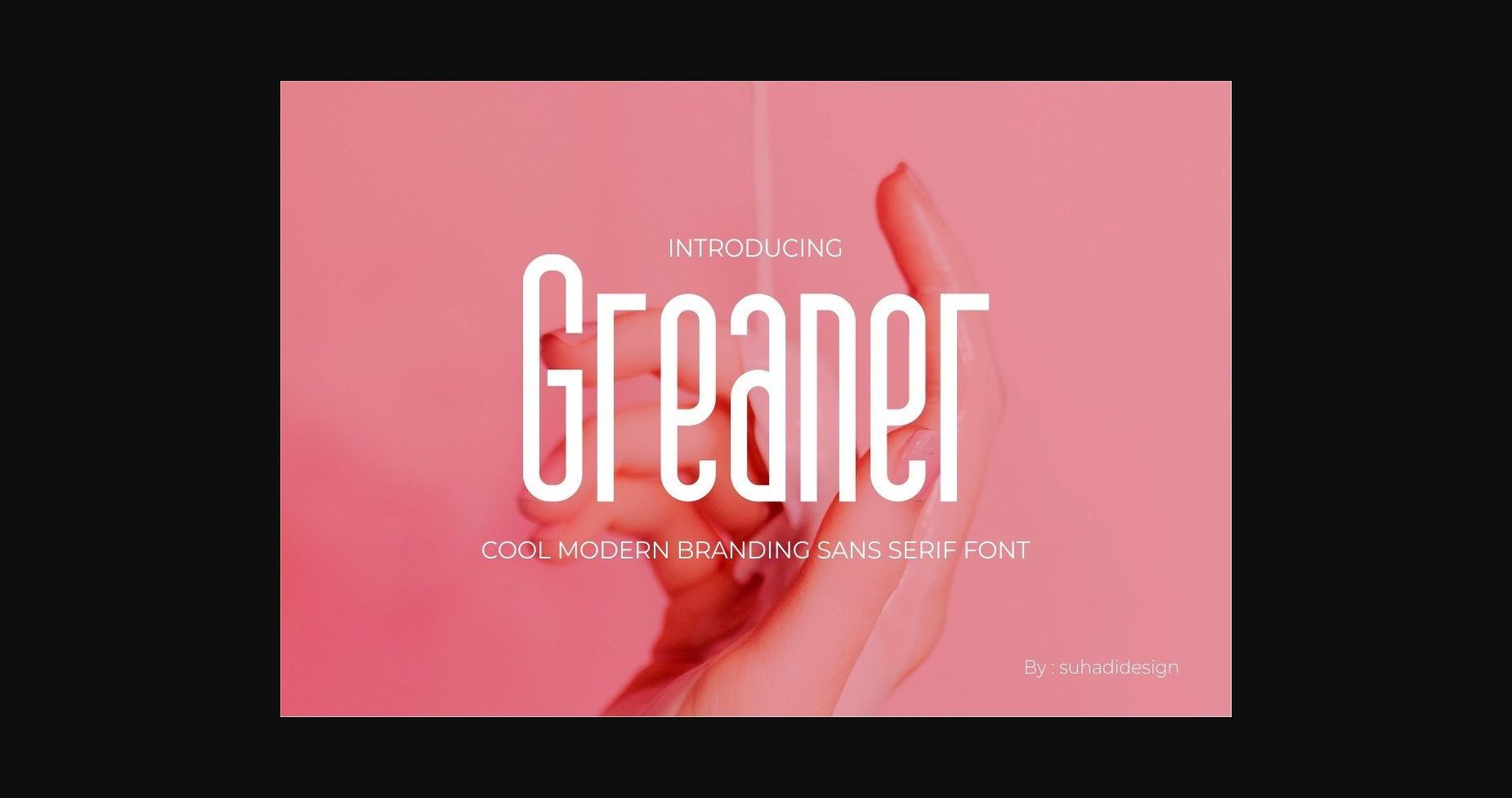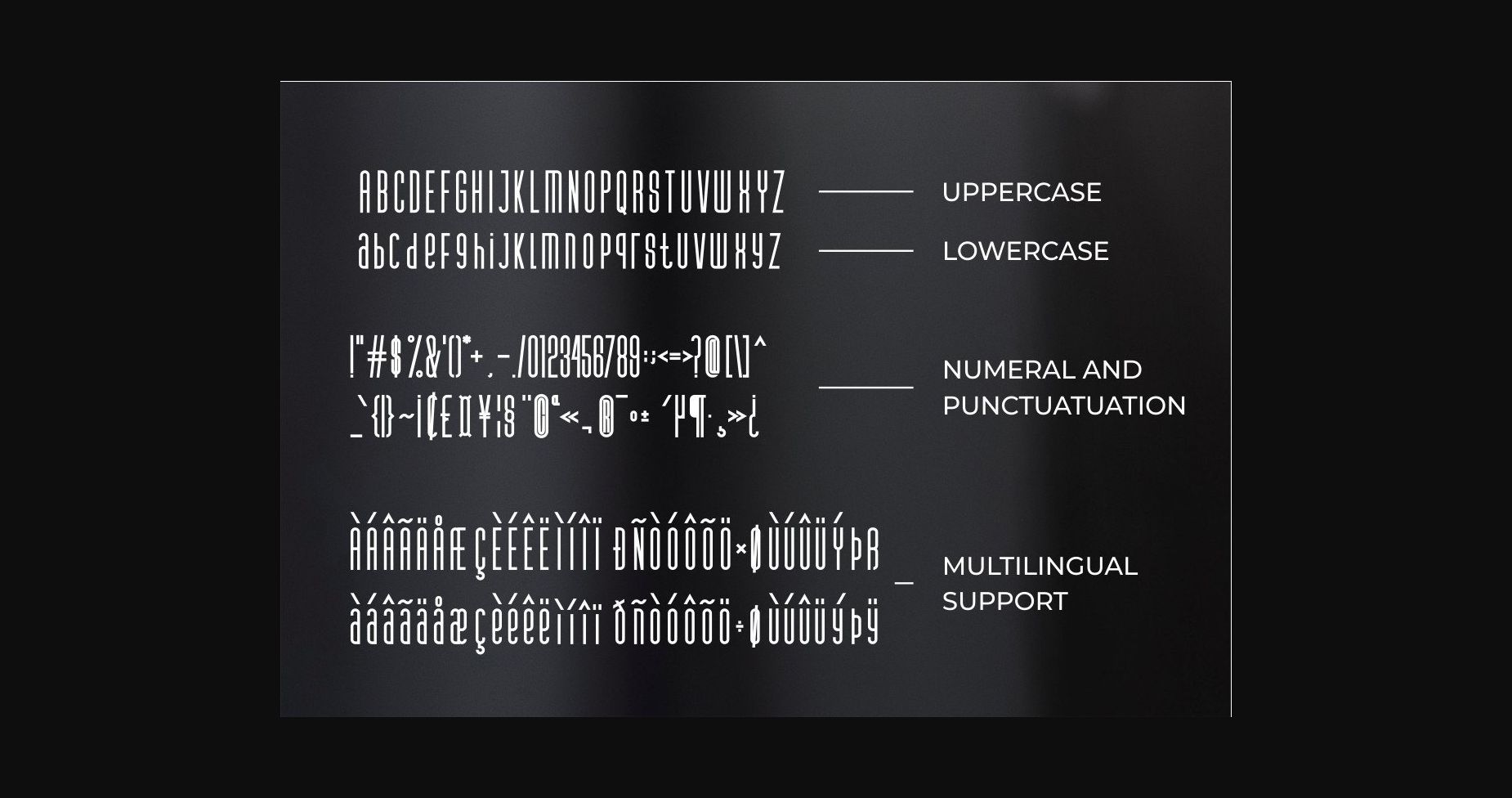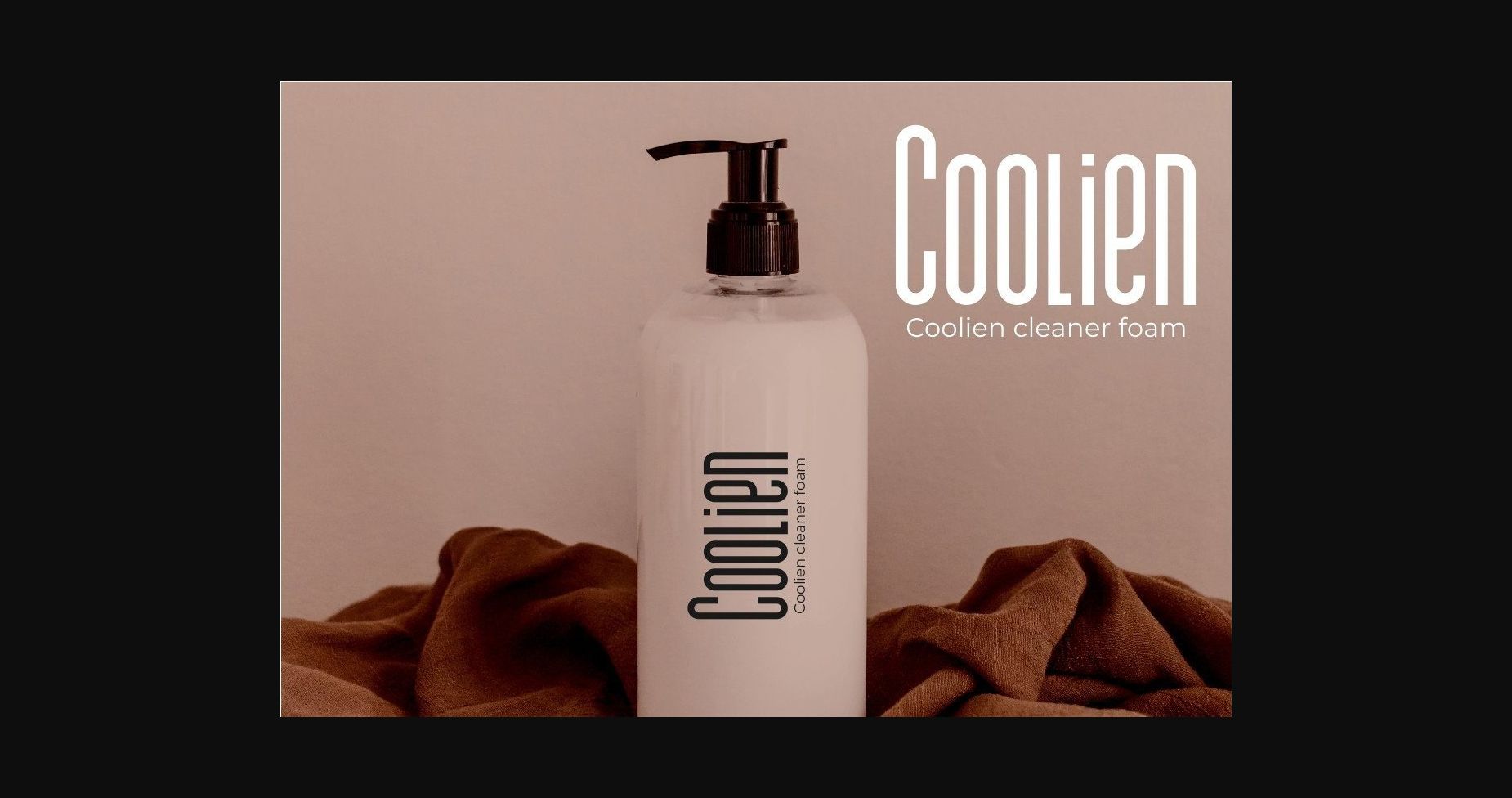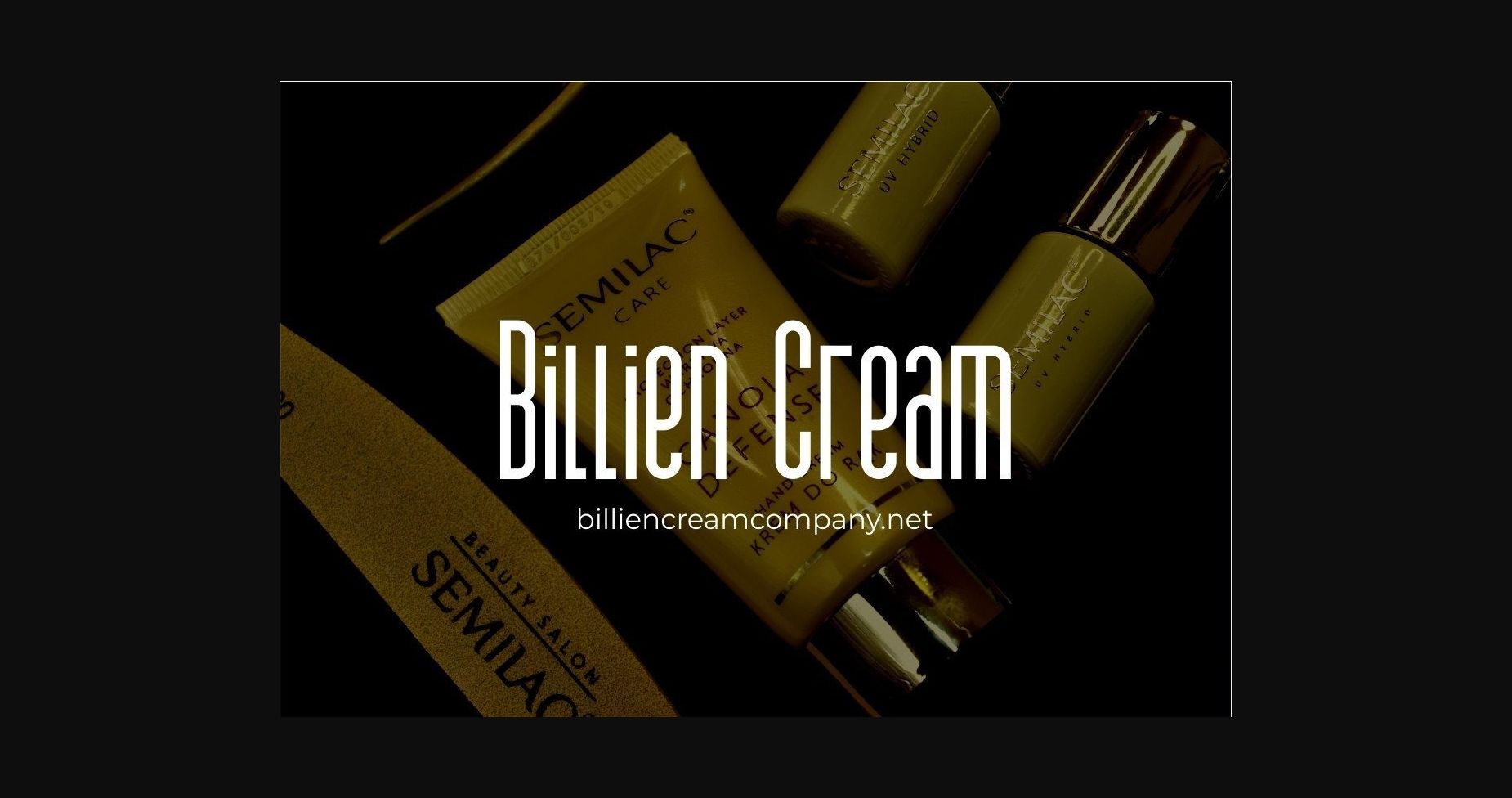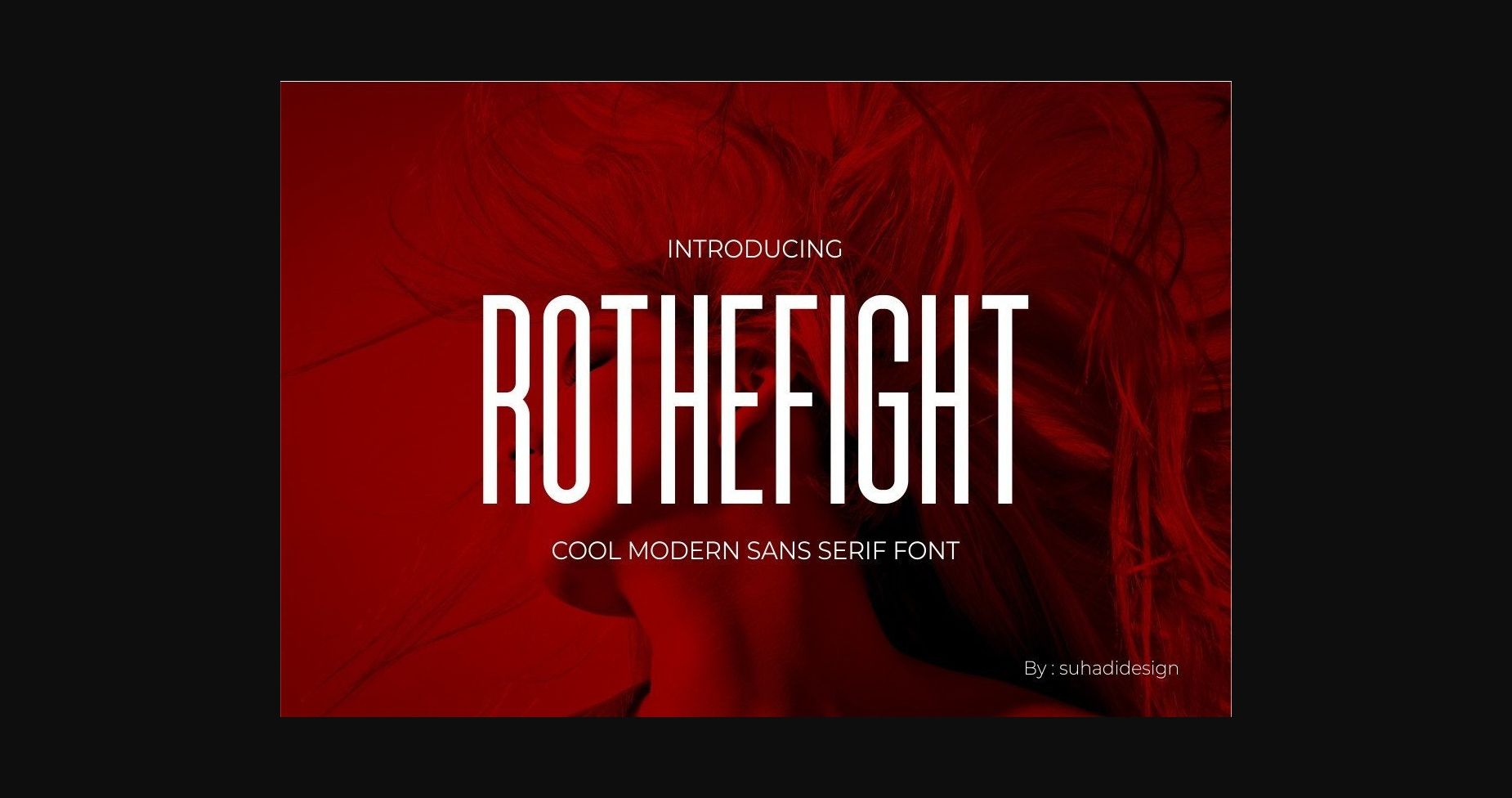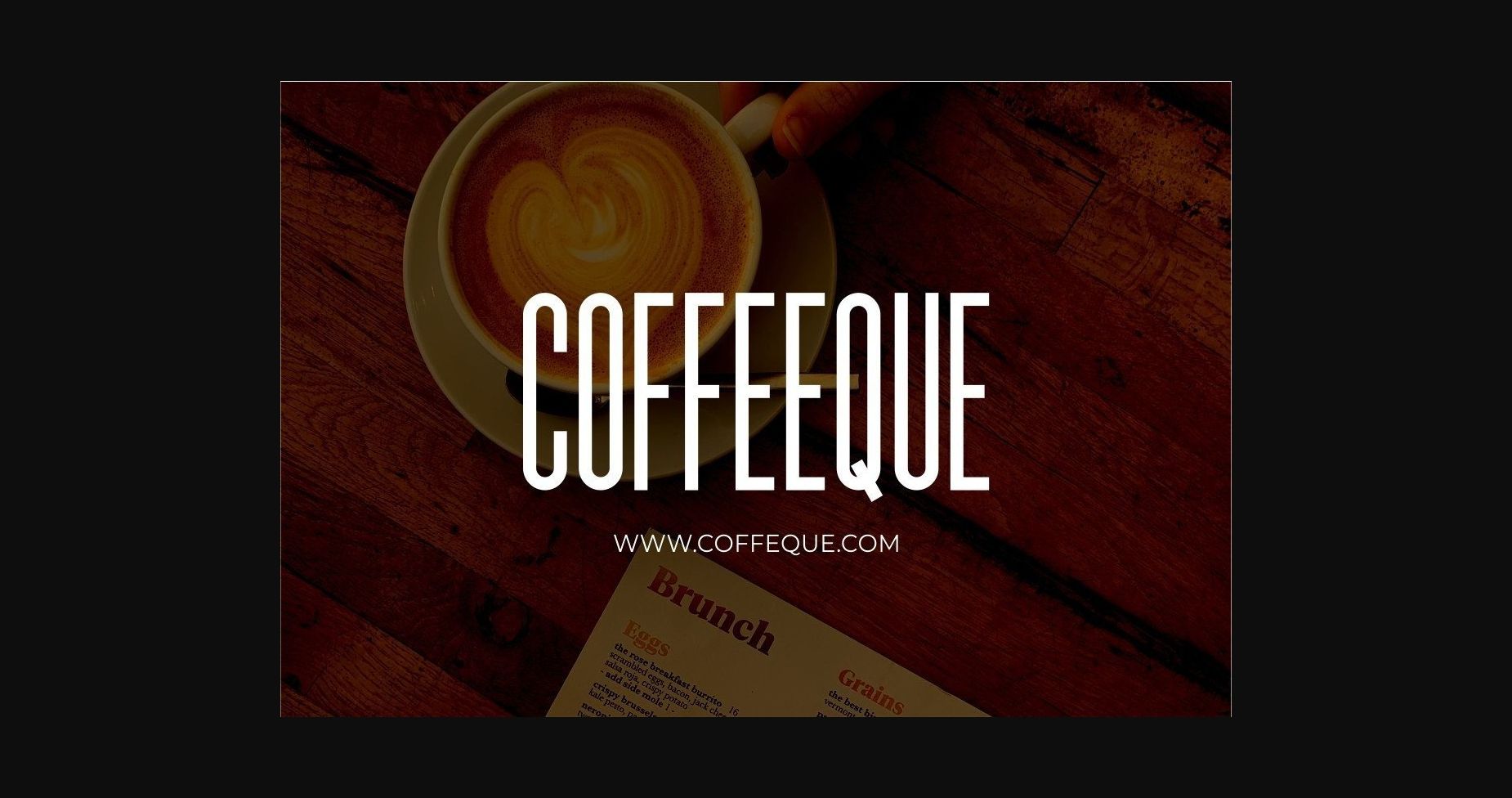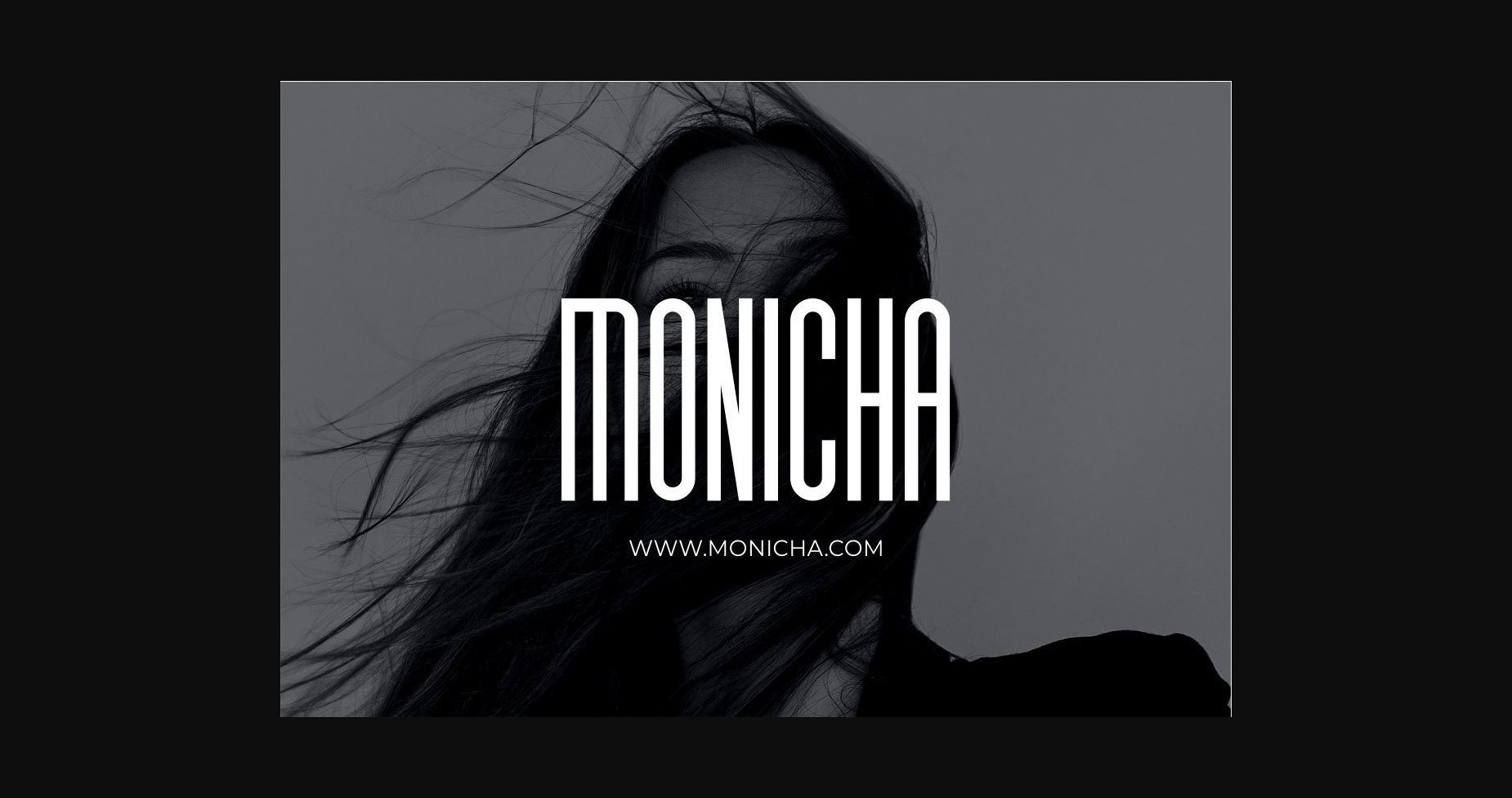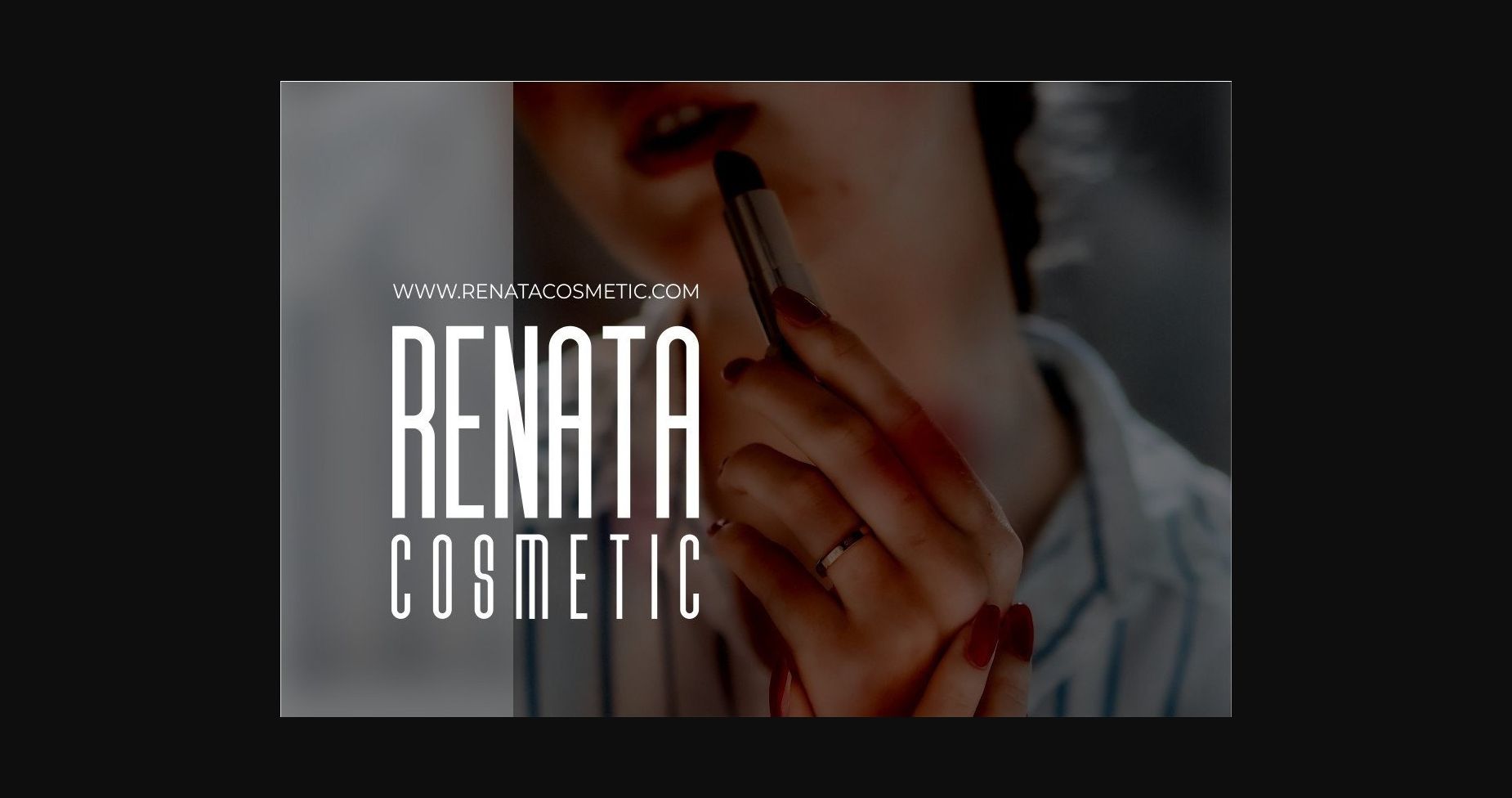
Greaner Font
About Greaner Font
Greaner font comes with a modern style hoping to become a favorite by the market. The font looks elegant, classy, modern, stylish, modern, and easy to use. Greaner Font is a great choice for brands, company names, fashion, logos, food menus, brand names, branding, quotes, album covers, and other projects. Font Greaner is here to take your designs to the next level.